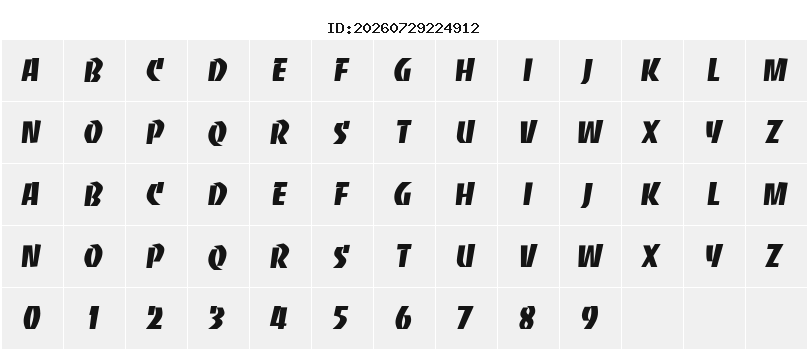
Kick Start SSi Preview
Kick Start SSi.ttf is a modern, elegant sans-serif font designed for ultimate readability and visual harmony. Perfect for branding, headlines, web design, and print materials.